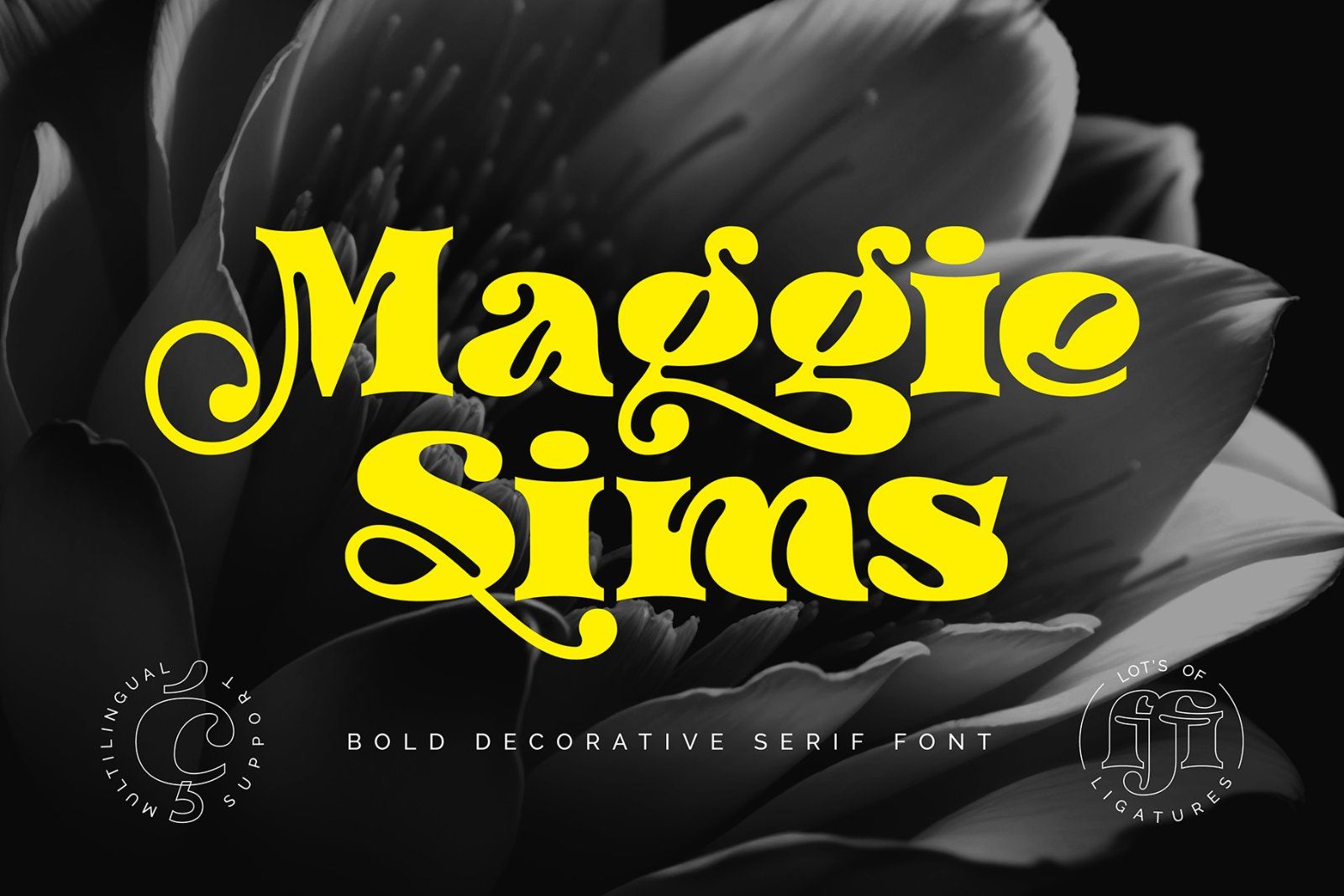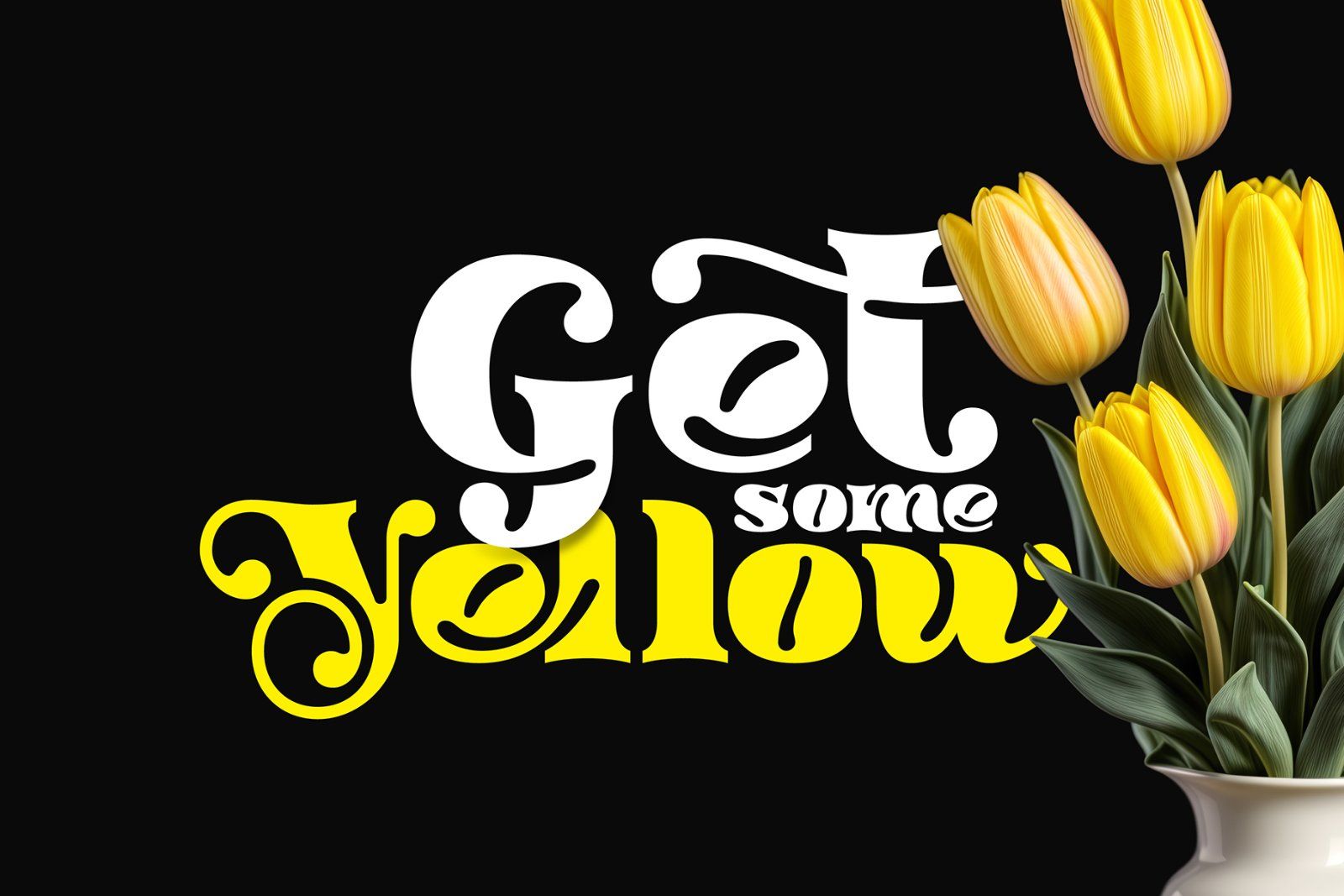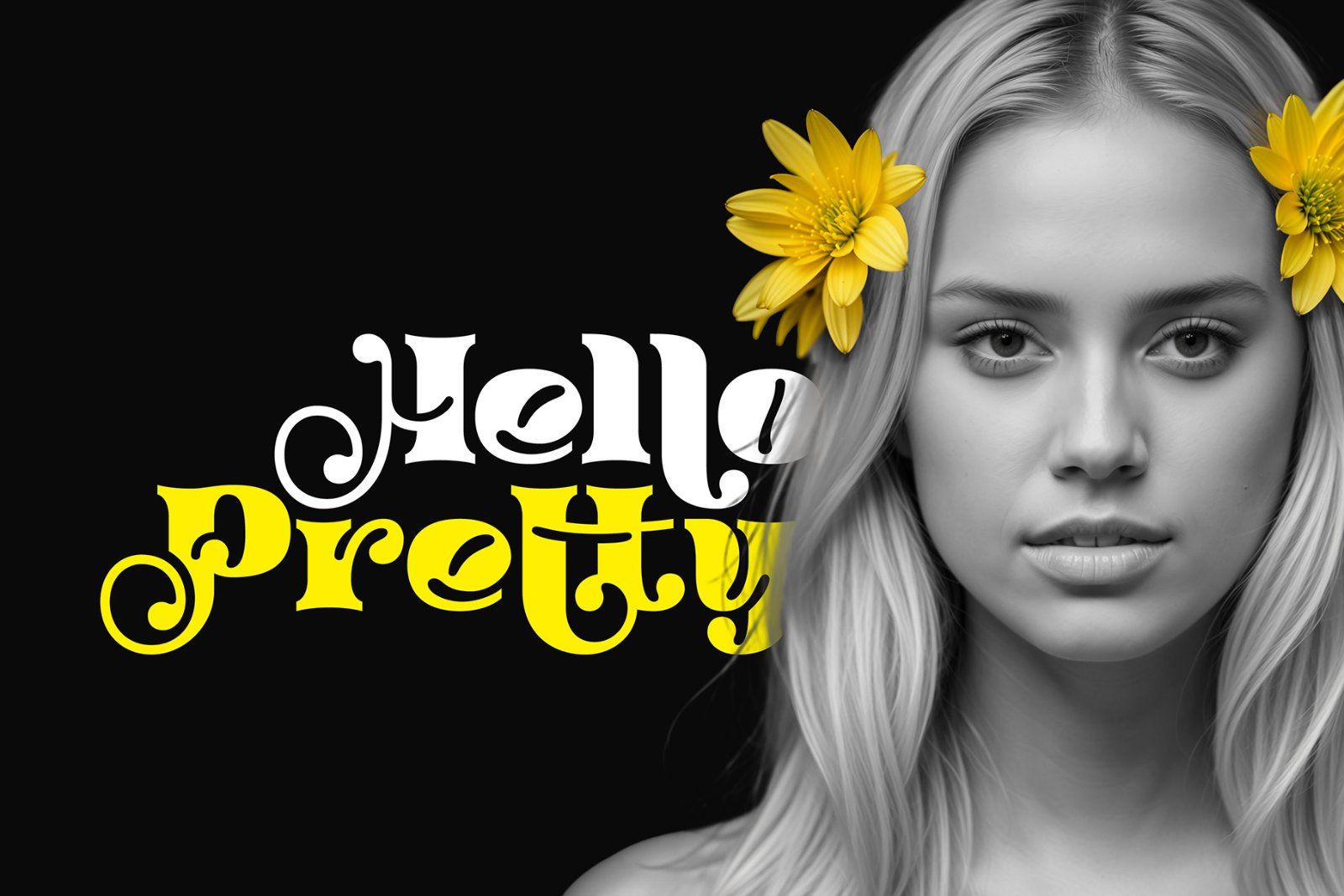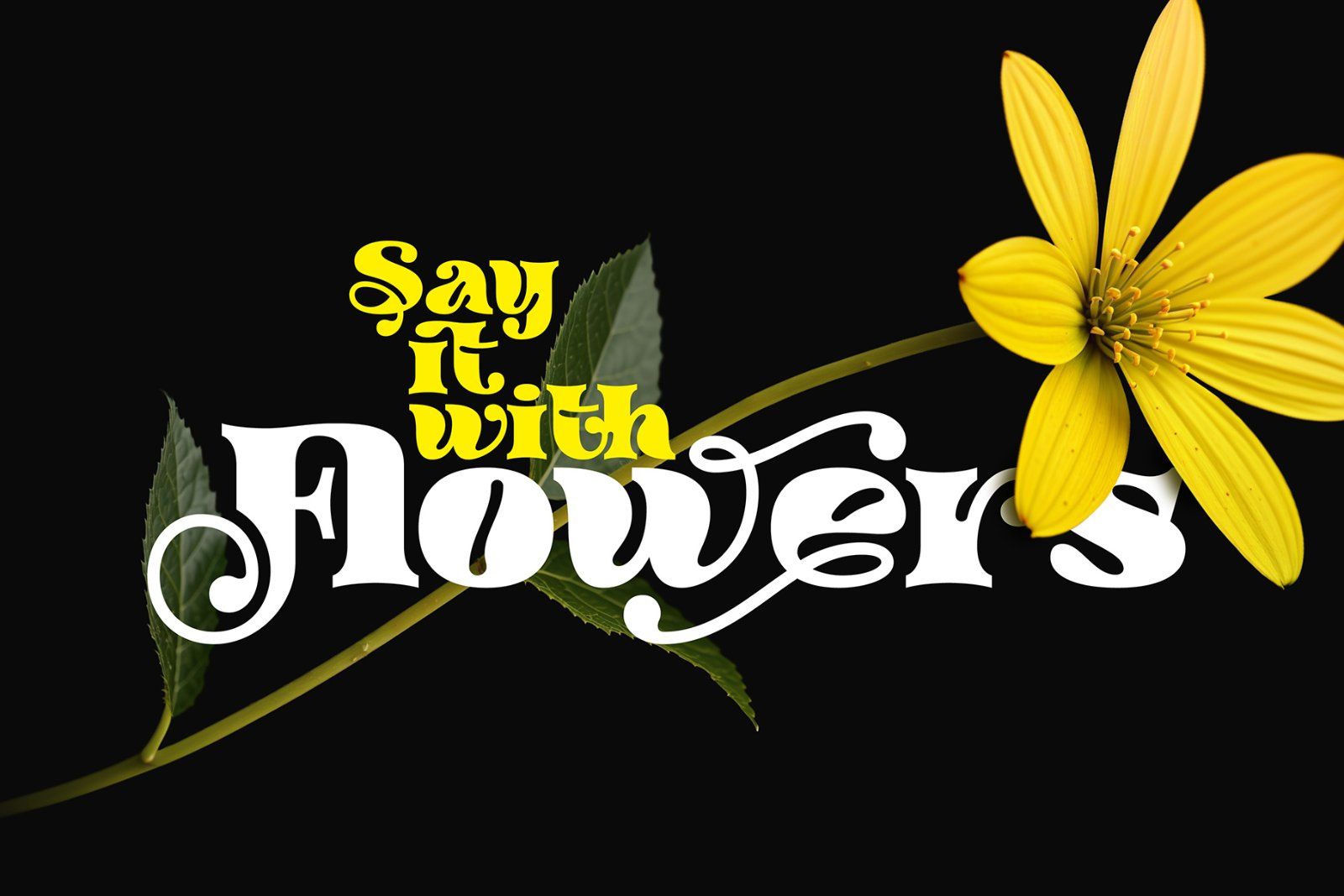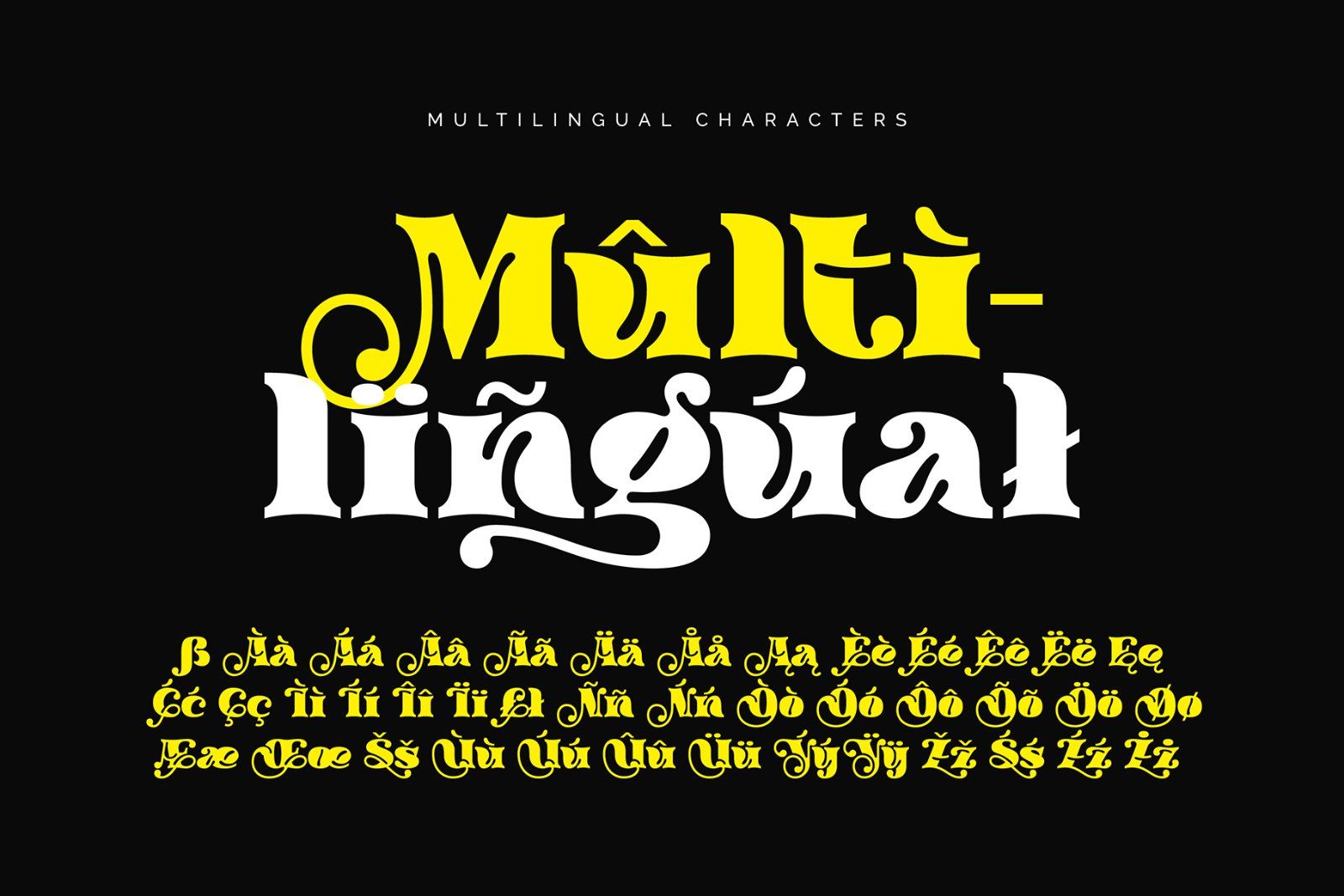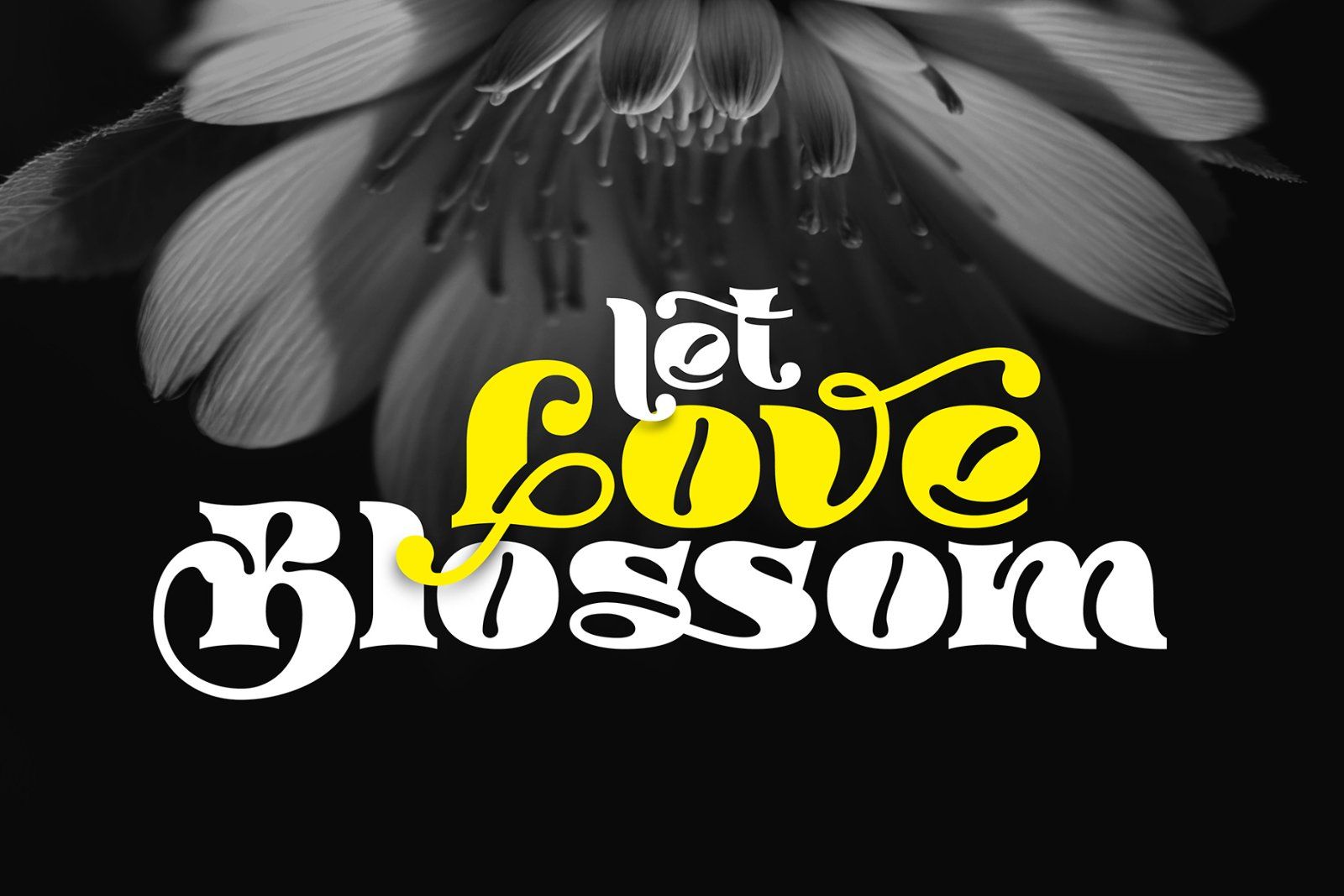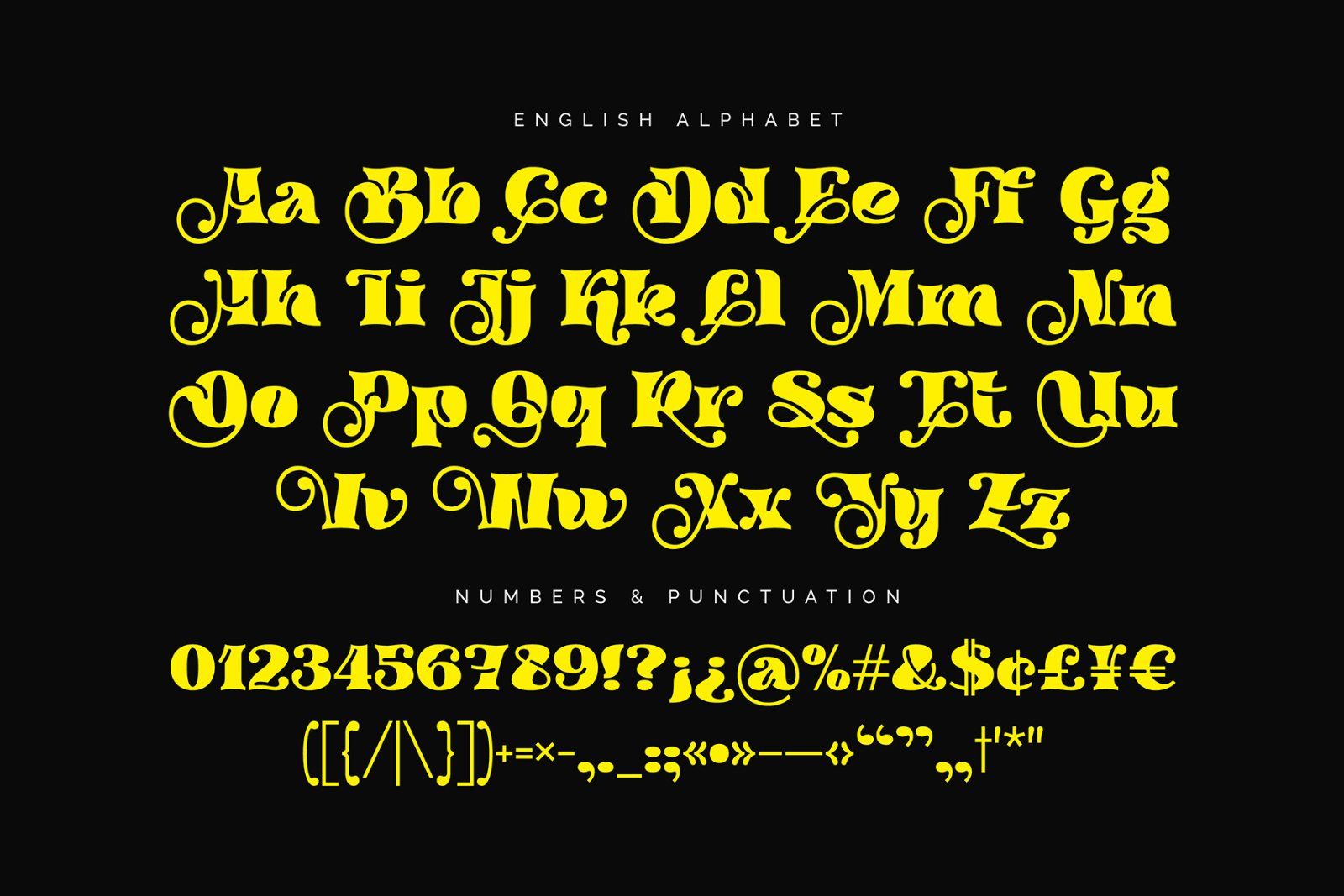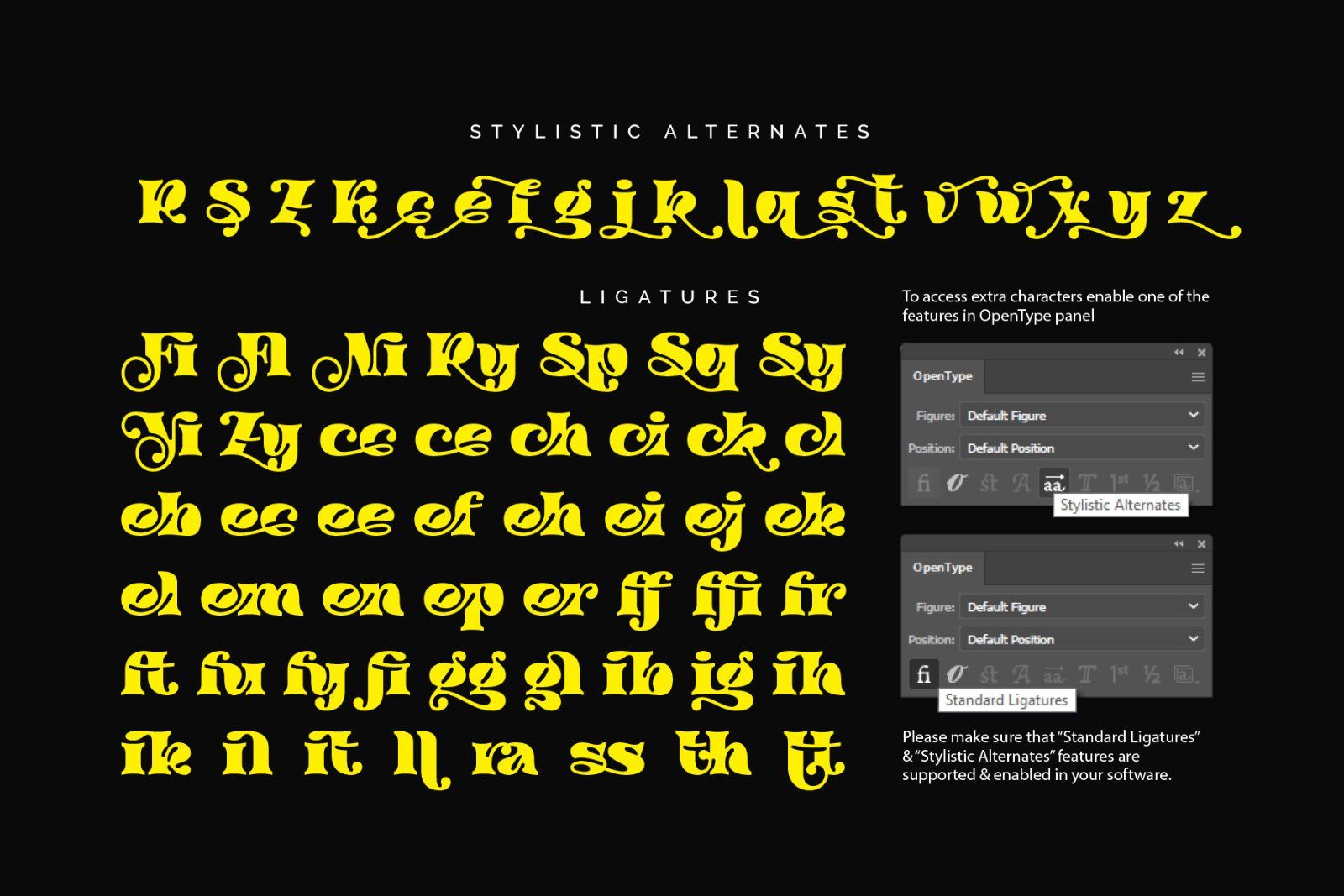
Hello! Introducing a bold serif font — Maggie Sims. It's a decorative shape bold typeface with lot's of extra characters. Available ligatures and alternative letters helps to create an original lettering compositions. Please make sure that OpenType features are supported & enabled in your software. Maggie Sims Font has a multilingual support (check out a screenshot with available letters and signs).